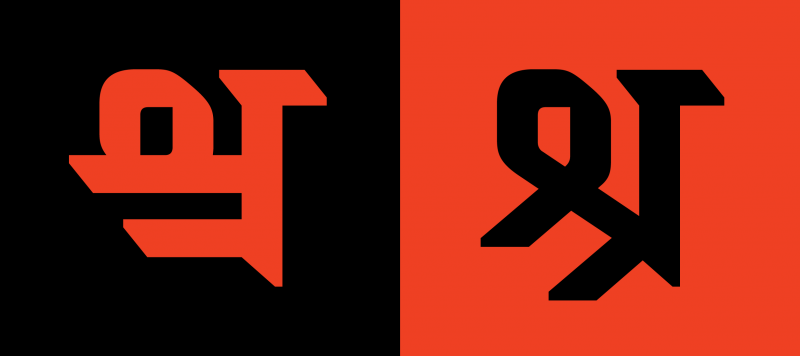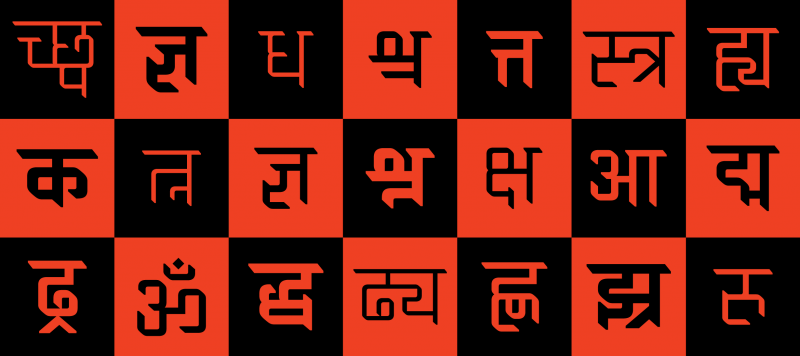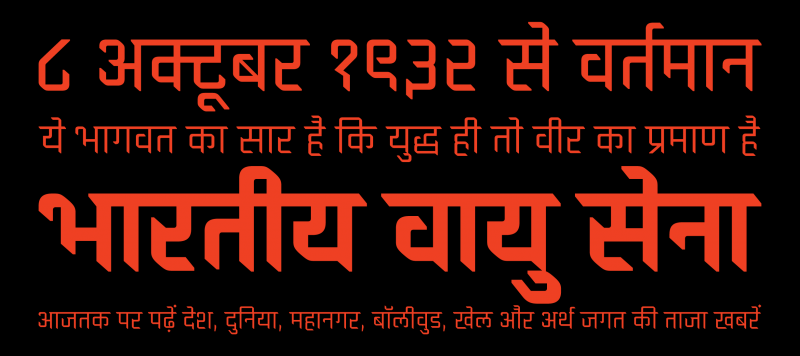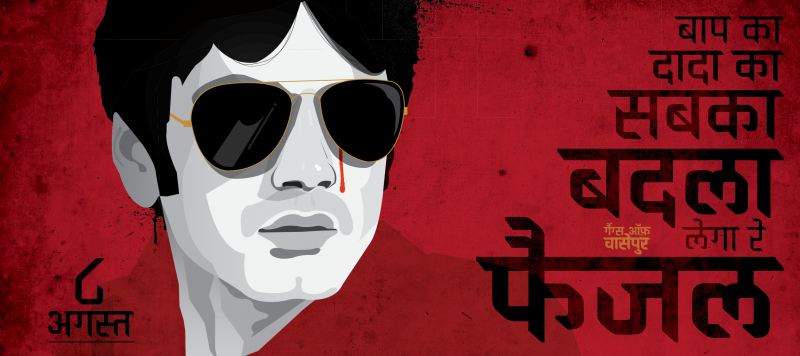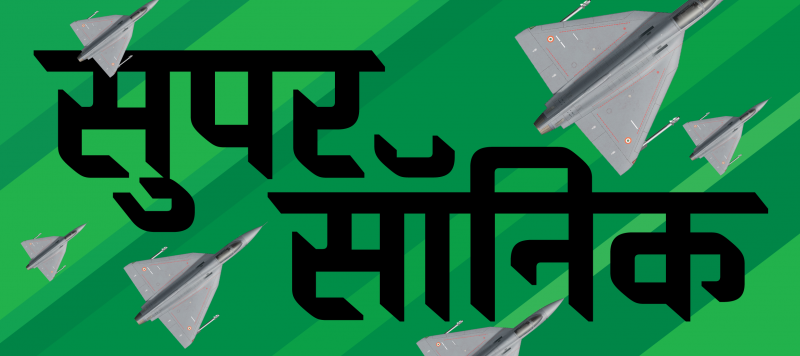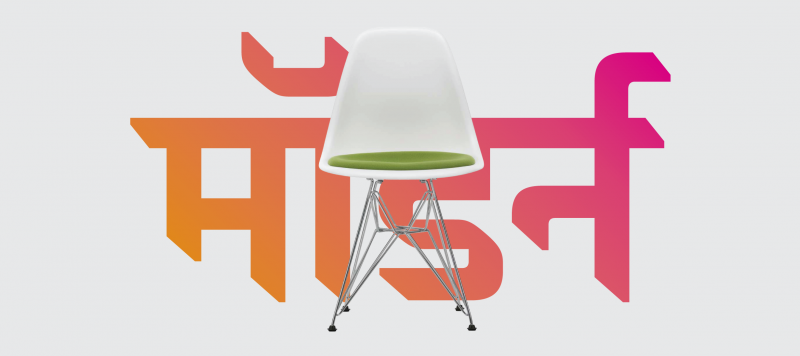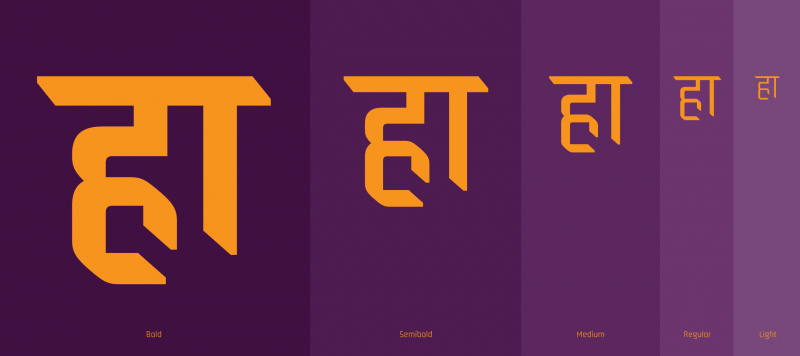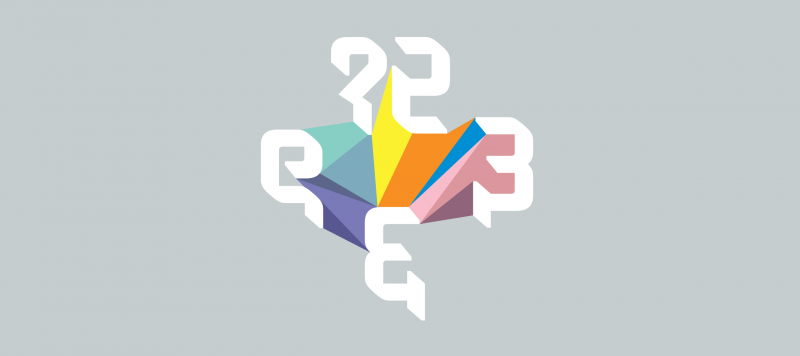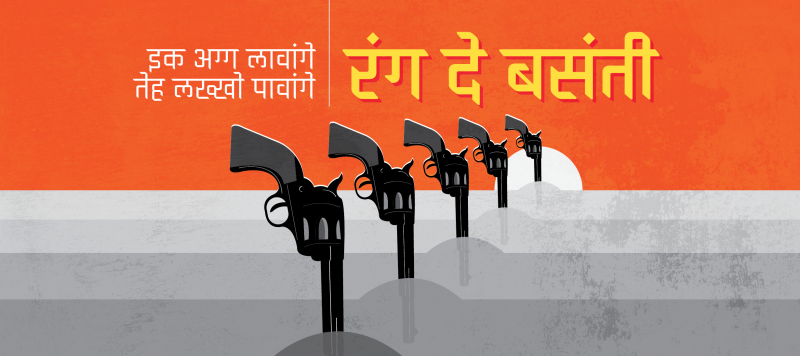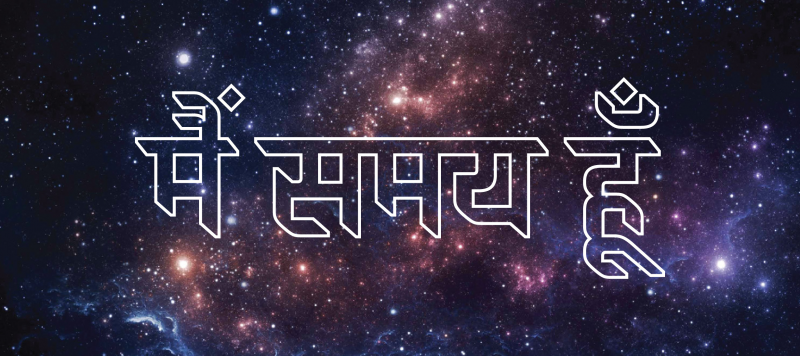
Brahmos Devanagari is a display family with modular forms. Despite looking like a constructed typeface, its characters appear to have been written with a broad-edged pen. Curves are eschewed in favor of straight lines and (usually) right angles, but diagonals are still present. Each weight’s character set has 780 glyphs, including all of the necessary conjuncts and ligatures for typesetting modern Indian languages written in Devanagari.
Family Name Brahmos Devanagari
Designer(s) Hitesh Malaviya (Rocky)
Classification Sans, Display